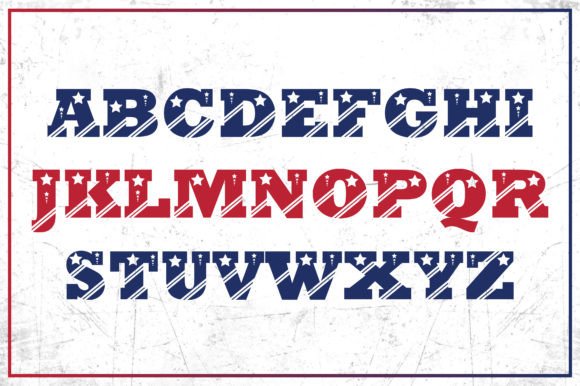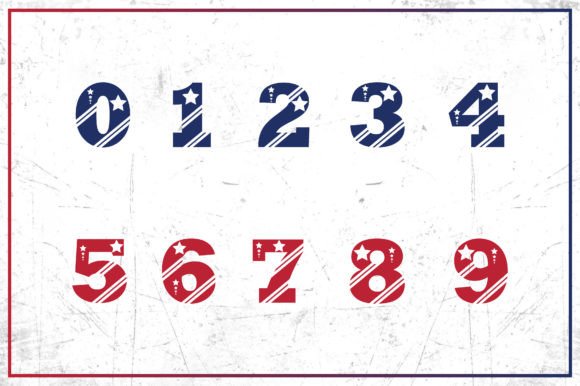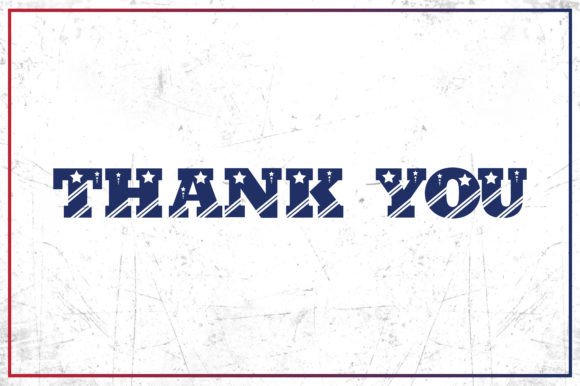
Introducing the Fourth July Font: A Fun and Dynamic Decorative Display Font
Are you looking for a font that can add a touch of excitement and energy to your designs? Look no further than the Fourth July Font! This fun and dynamic decorative display font is perfectly suitable for any design or crafty idea, and is sure to take your projects to the next level.
What Makes the Fourth July Font So Special?
The Fourth July Font is a unique and eye-catching font that is designed to make a statement. Its bold and playful design makes it perfect for use in a variety of applications, from DIY crafts to professional design projects. Whether you’re looking to create a festive holiday card, a fun and playful poster, or a bold and eye-catching logo, this font is sure to deliver.
Key Features of the Fourth July Font
- Fun and Dynamic Design: The Fourth July Font features a fun and dynamic design that is sure to grab attention. Its bold and playful letters are perfect for making a statement in any design.
- Perfect for DIY Crafts: This font is perfect for use in DIY crafts, such as handmade cards, scrapbooking, and other paper crafts.
- Suitable for Professional Design Projects: The Fourth July Font is also suitable for use in professional design projects, such as logo design, branding, and advertising.
How to Use the Fourth July Font in Your Designs
Tips for Using the Fourth July Font
- Use it as a Title Font: The Fourth July Font is perfect for use as a title font in posters, flyers, and other designs.
- Add it to Your DIY Crafts: This font is perfect for use in DIY crafts, such as handmade cards and scrapbooking.
- Experiment with Different Colors: The Fourth July Font looks great in a variety of colors, so don’t be afraid to experiment and find the perfect color for your design.
Why Designers and Crafters Love the Fourth July Font
Designers and crafters love the Fourth July Font for its unique and eye-catching design. It’s perfect for adding a touch of excitement and energy to any design, and is sure to make your projects stand out.
What Designers and Crafters Are Saying About the Fourth July Font
In conclusion, the Fourth July Font is a fun and dynamic decorative display font that is perfect for any design or crafty idea. Its bold and playful design makes it perfect for use in a variety of applications, from DIY crafts to professional design projects. So why wait? Download the Fourth July Font today and start adding a touch of excitement and energy to your designs!